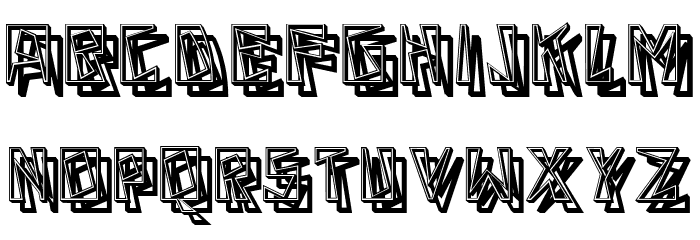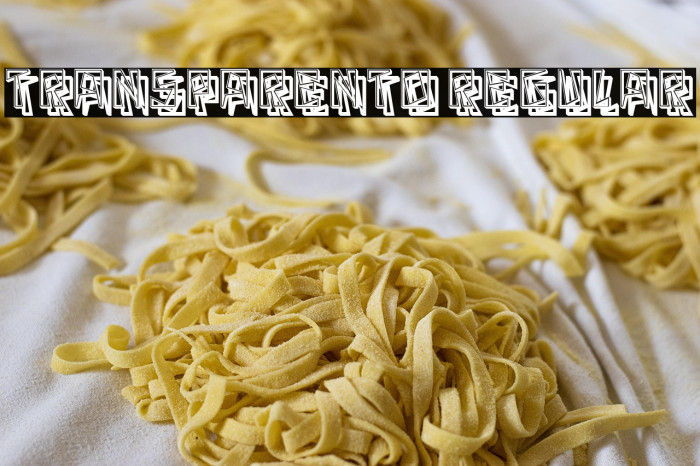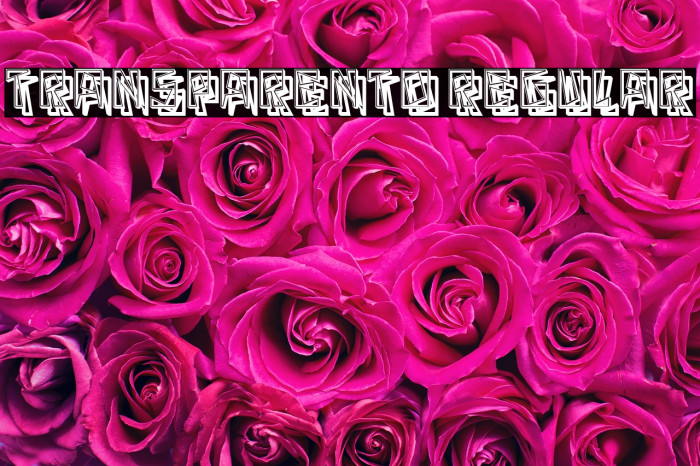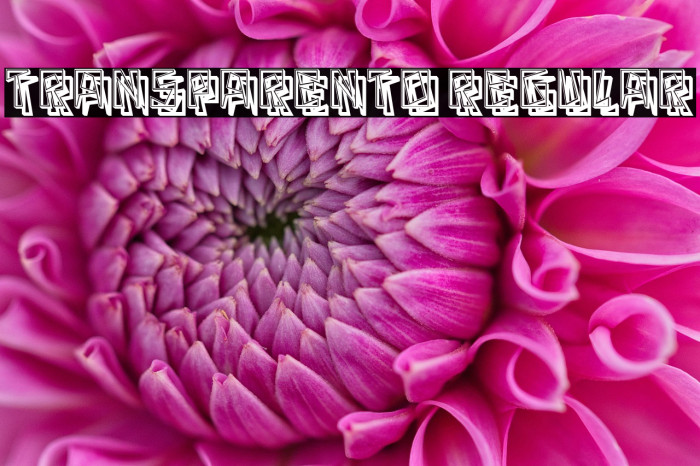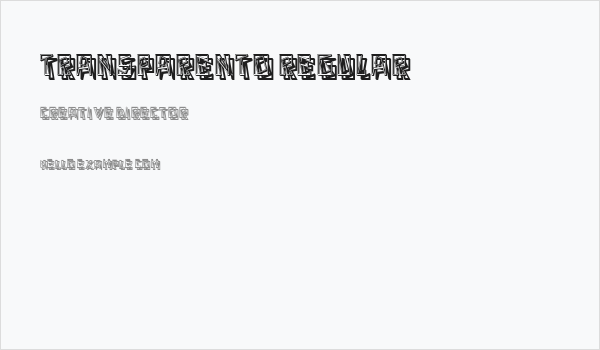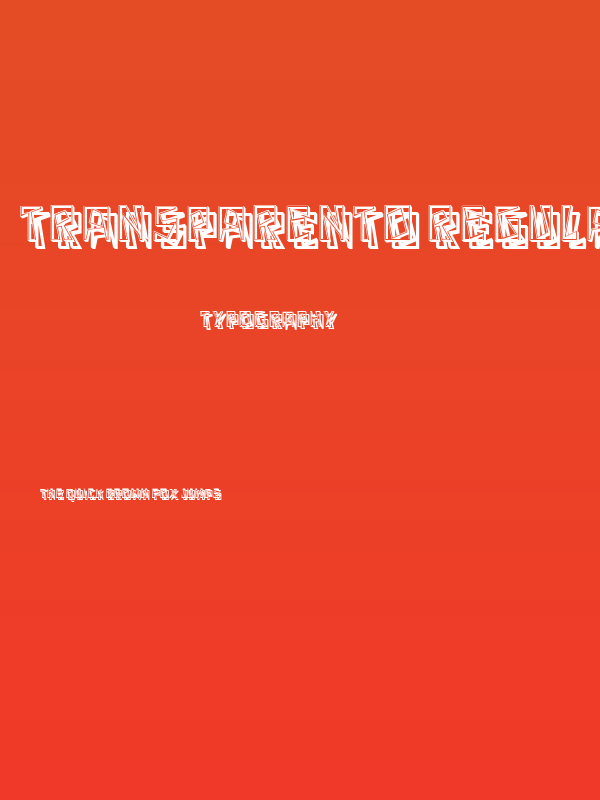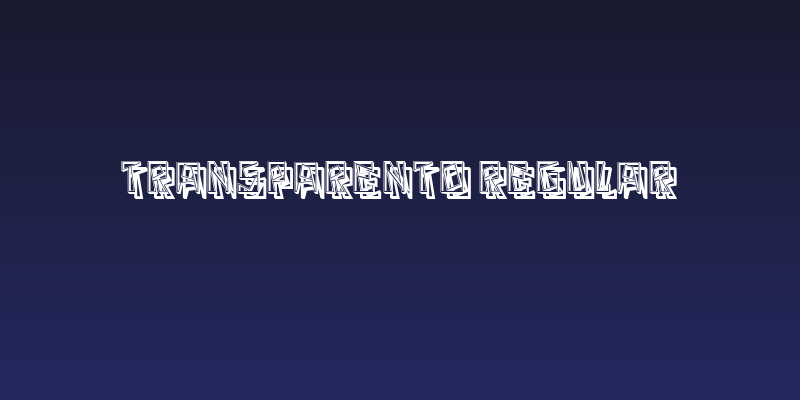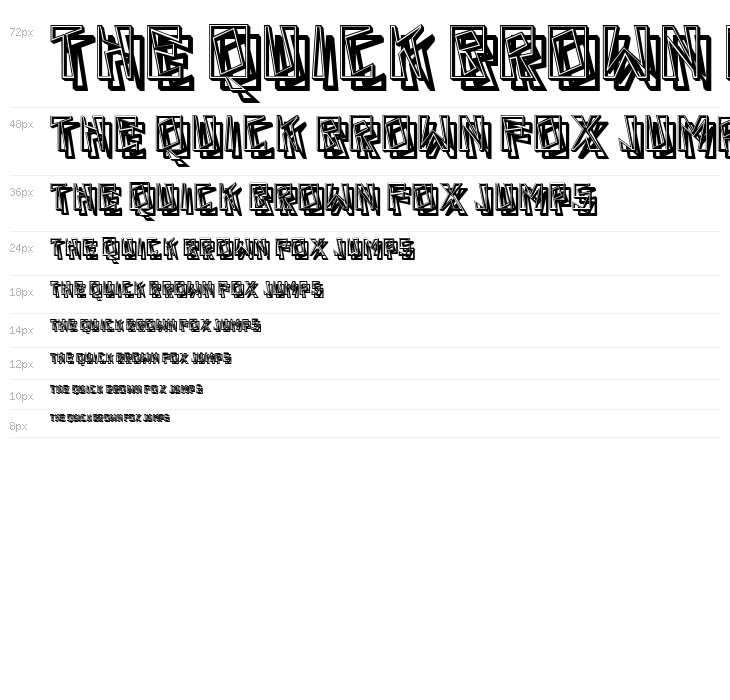
Transparento Regular Font
This font features a bold, graffiti-inspired style with a three-dimensional effect. Each character is outlined with a thick black border, creating a strong visual impact. The interior of the letters is filled with a white space that adds depth and contrast. The angular and geometric shapes give it an edgy and modern appearance, making it stand out in any design. The font is highly decorative, with a playful and rebellious vibe, suitable for projects that require a bold statement.
Overall StyleModern, Edgy
Proposed ProjectsIdeal for street art designs, urban-themed posters, music album covers, and event flyers.